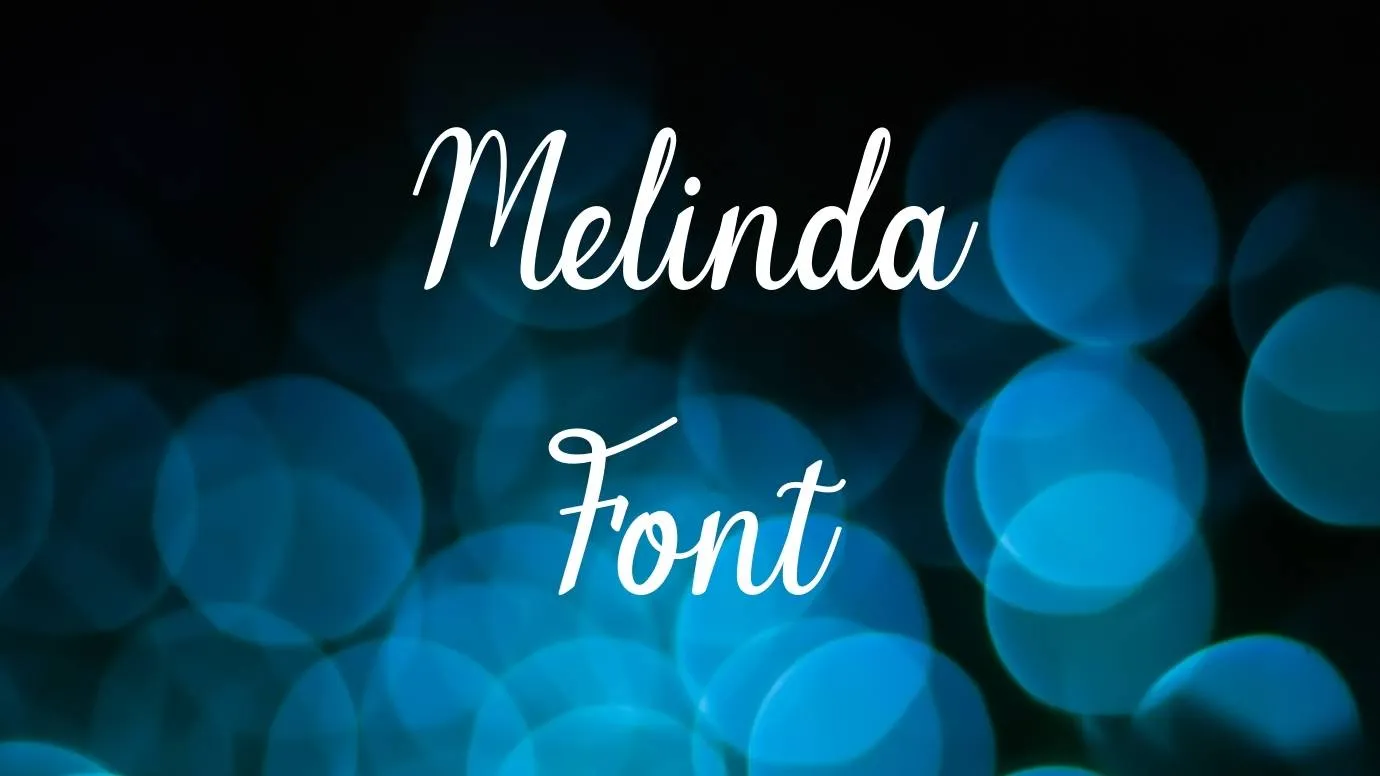
Font Introduction
Melinda Font Family is a script font with beautiful bold letters. This gorgeous typeface has 78 characters, including numbers, uppercase, punctuation, and lowercase letters. Its exciting look is so coherent and useful for designers for calligraphy design purposes.
It was published and developed by Marwah Store. The use of this font is so high in the last two years in the United States and others regions. This modern typeface is suitable for use in the process of new text design creation. Its attractive look makes it more beneficial for designers.
Features of Melinda Font
- You can utilize this modern and gorgeous typeface for making outstanding banner designs, wall murals designs, and poster designs.
- This typeface is suitable for creating restaurants names designs, branding logo designs, cloth product designs, t-shirt designs, and many other official designing purposes.
- It is suitable for use in Facebook post designs, presentation designs on Powerpoint, greeting card designs, and gift card design projects.
- You can pick this amazing typeface for Youtube video designs, gaming video designs, blog post designs, web page designs, and stylish theme designs purposes.
What kind of font is Melinda Font?
The kind of this typeface is a script and the designer and publisher of this font are Marwah Store.
Is there any similar font to Melinda Font?
There are alternative fonts to this gorgeous typeface and a better together font is the perfect alternative to this typeface.